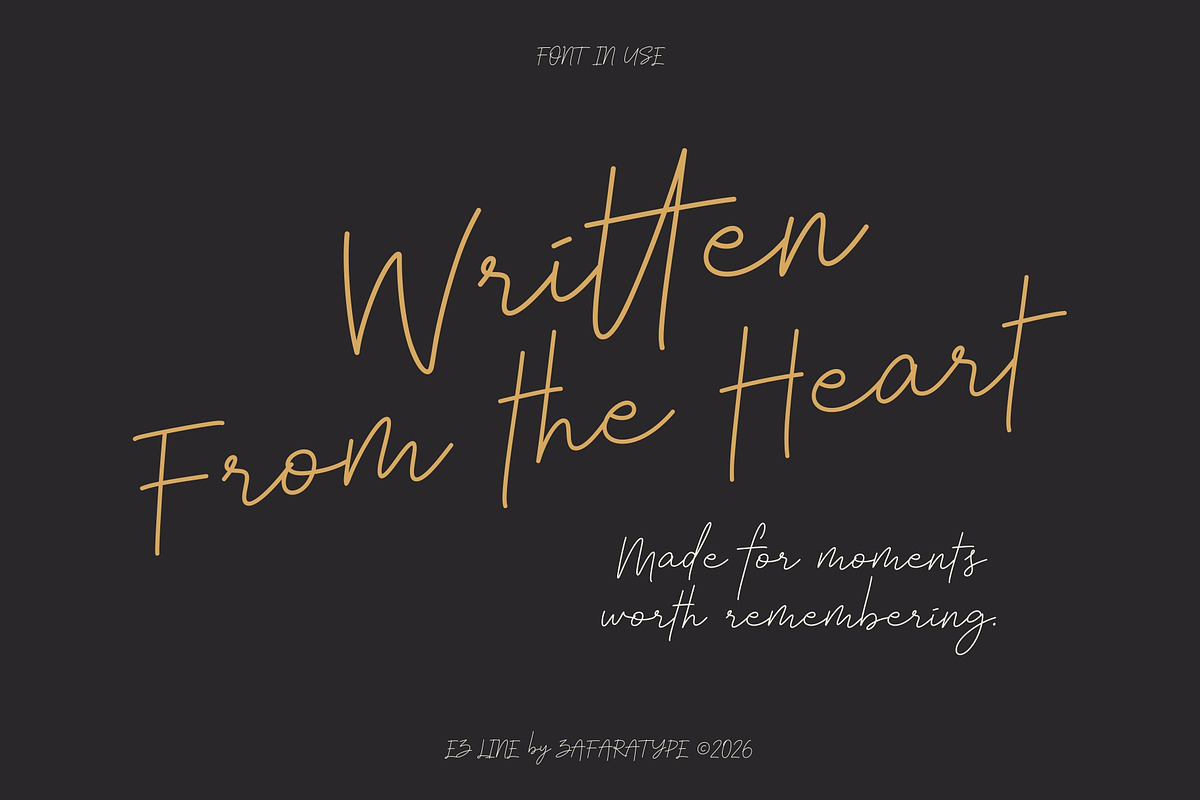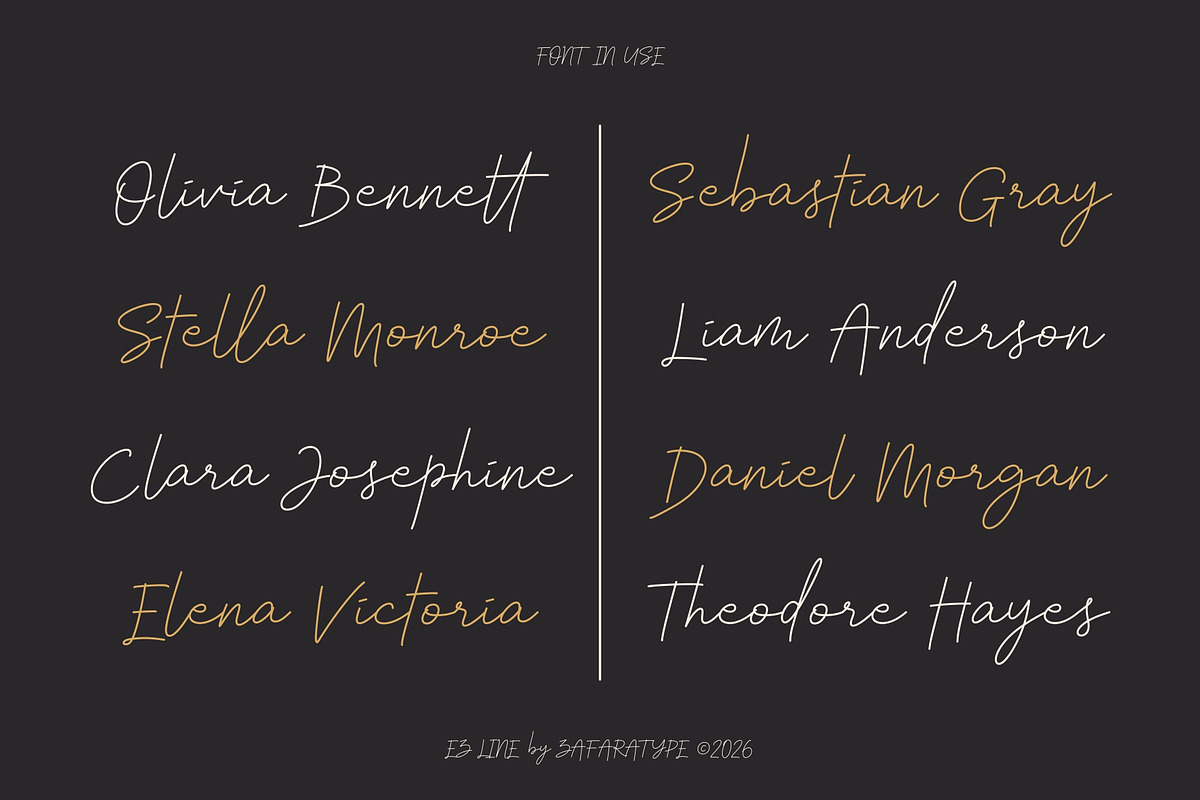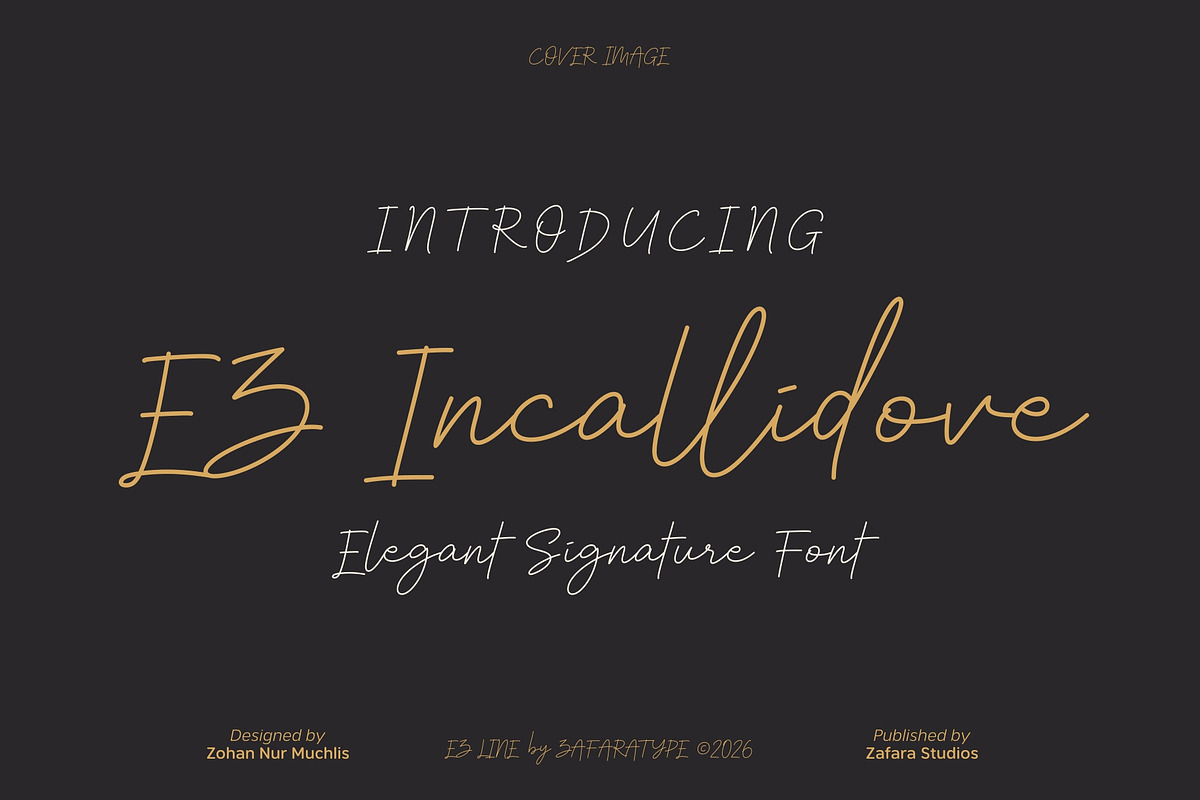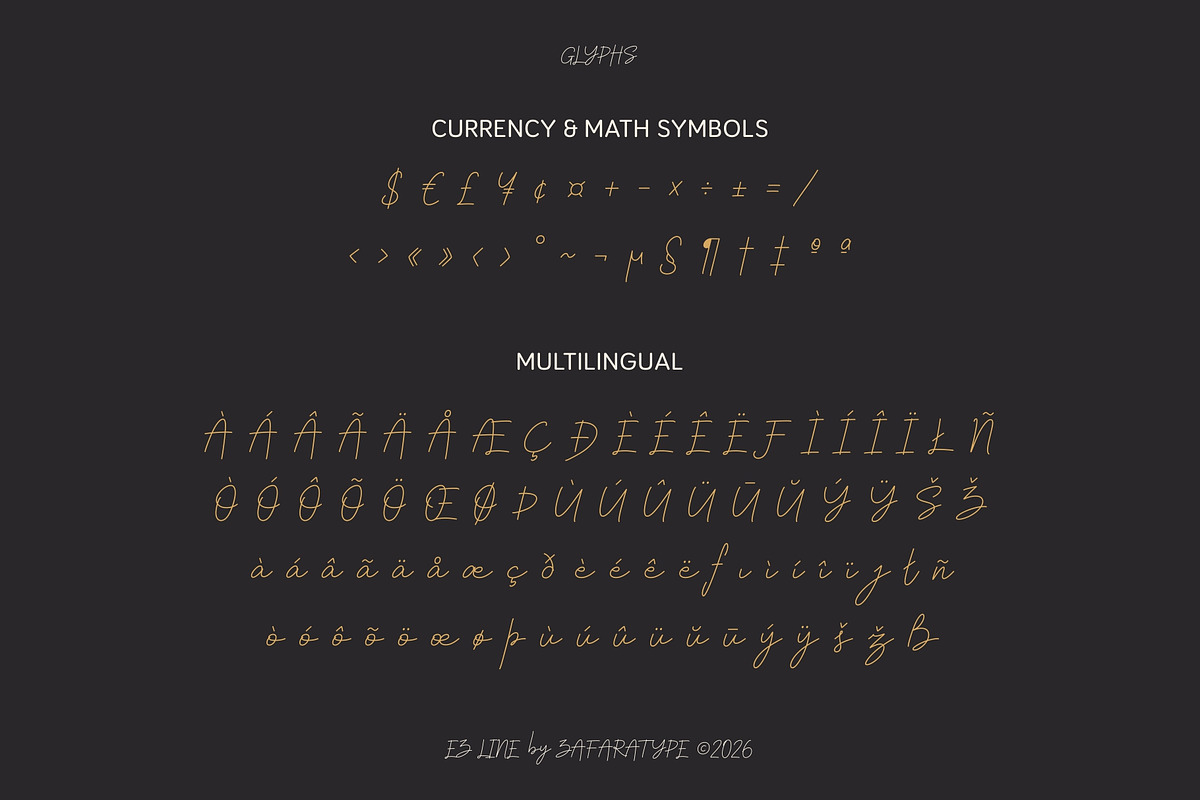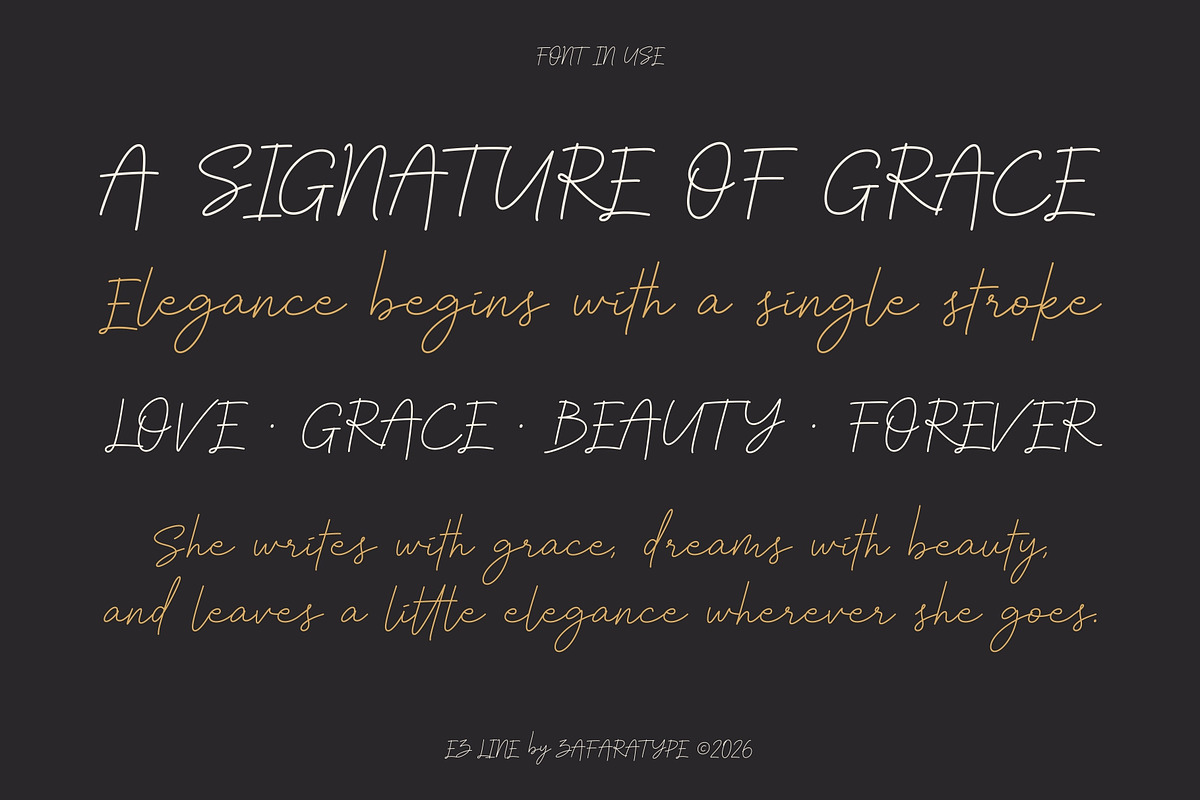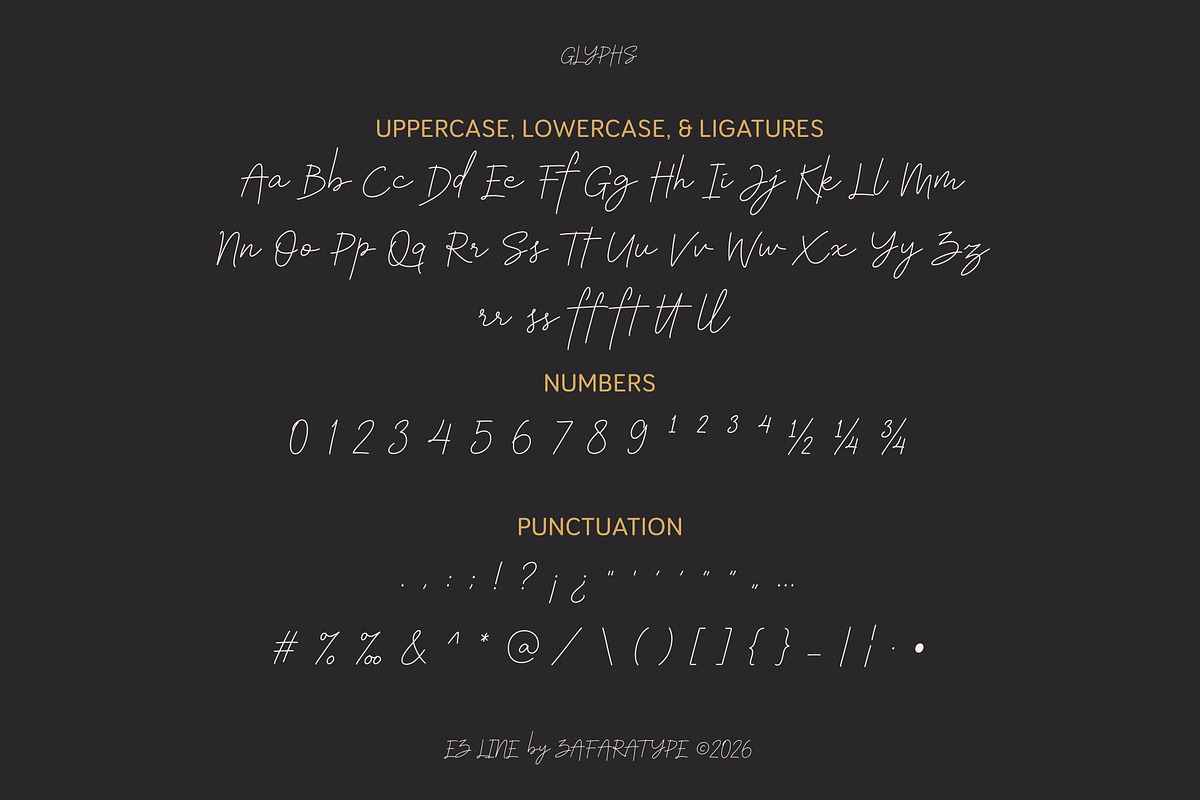
EZ Incallidove
EZ Incallidove is a delicate and elegant signature script that blends graceful sophistication with the natural charm of genuine handwriting. Featuring flowing strokes, refined curves, and beautifully connected letterforms, it brings a romantic and personal feel while maintaining a smooth and expressive character.
Designed to capture the beauty of effortless handwriting, EZ Incallidove is perfect for branding, wedding invitations, greeting cards, quotes, logos, social media, packaging, stationery, and other elegant creative projects. Whether you're creating something heartfelt, luxurious, or timeless, it adds a graceful and personal touch to every design.
249 glyphs: Uppercase, lowercase, ligatures, numbers & punctuation, symbols & accents, multilingual support